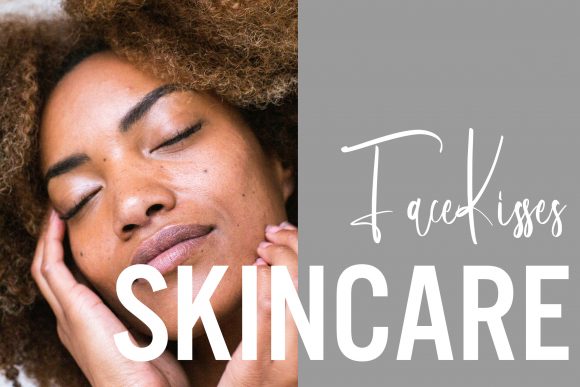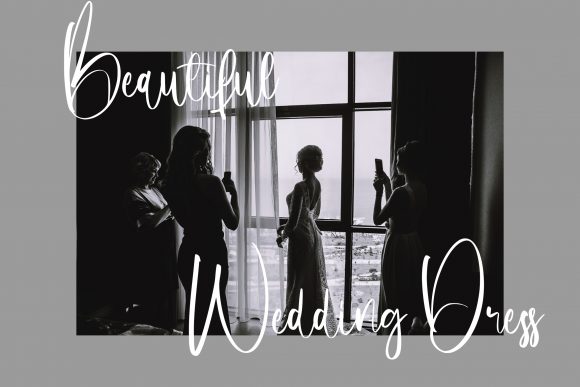
Motherhood Font
db-ku.com - Script & Handwritten -- Motherhood is a lovely and timeless handwritten font. It is the best choice for creating eye catching logos, branding and quotes. Every letter has a unique and beautiful touch, which will make your design come alive!